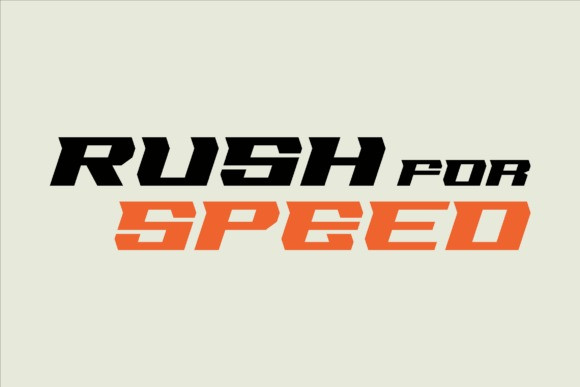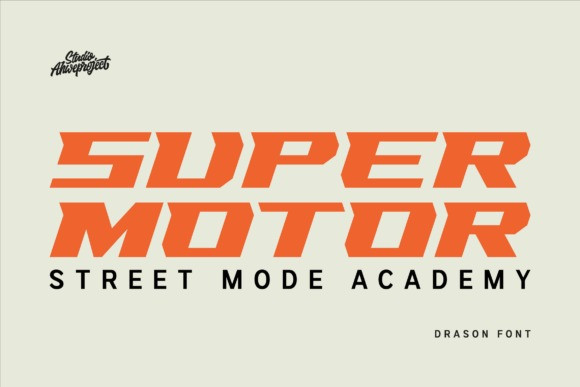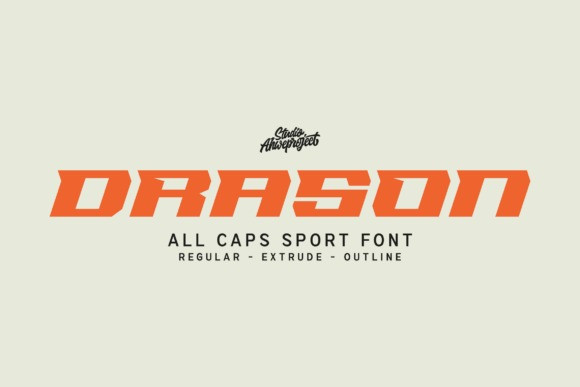
Drason Font
Drason Font is a bold all-caps sport font built to deliver strong impact and instant attention. Featuring sharp angles, aggressive shapes, and a modern athletic style, this typeface is perfect for sports branding, esports logos, racing posters, gym designs, automotive projects, and powerful YouTube thumbnails.
Designed with a solid and dynamic structure, Drason brings speed, energy, and confidence into every letterform. It includes Regular, Extrude, and Outline styles, allowing you to easily create layered typography, 3D effects, and eye-catching compositions without extra effort.